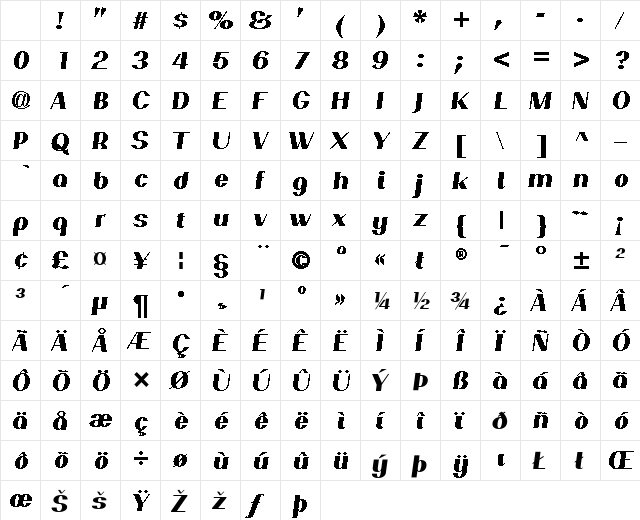
Complete PassionSansPDap ExtraBoldItalic glyph index. Displaying only characters natively supported by PassionSansPDap ExtraBoldItalic font.
PassionSansPDap is a composed and adaptable typeface that performs quietly and consistently across a wide range of design contexts. The slanted form adds forward momentum and visual energy. Its bold stroke weight gives it real presence on the page.
Pro Tip: Use PassionSansPDap for emphasis, pull quotes, and subheadings where its slanted energy can add rhythm to the layout.